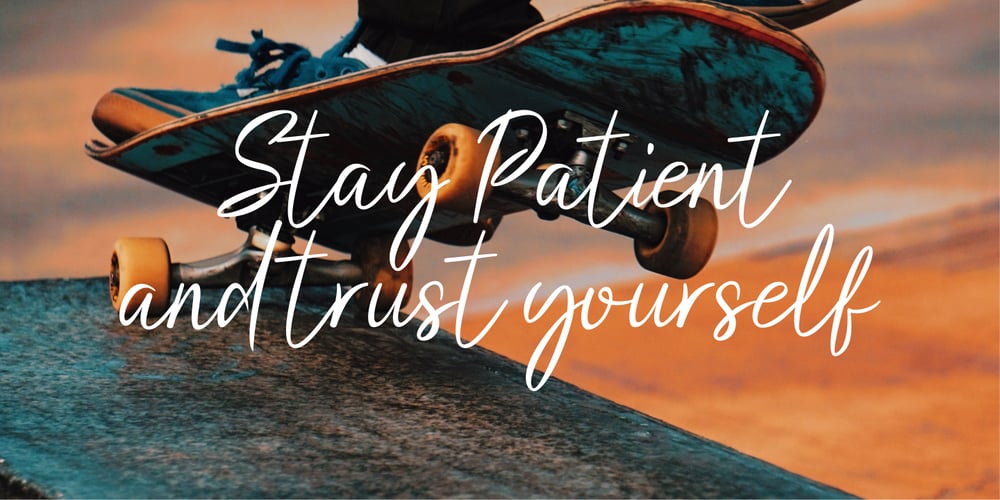
Salty Malthy
Salty Malthy font
Salty Malthy Font Family was designed by Muhammad Mujibulloh and published by MJB Letters. Salty Malthy contains 1 styles and family package options. Salty Malthy is a beautiful display font it made with perfect combining of each characters and looks original and can be used for all your project needs.